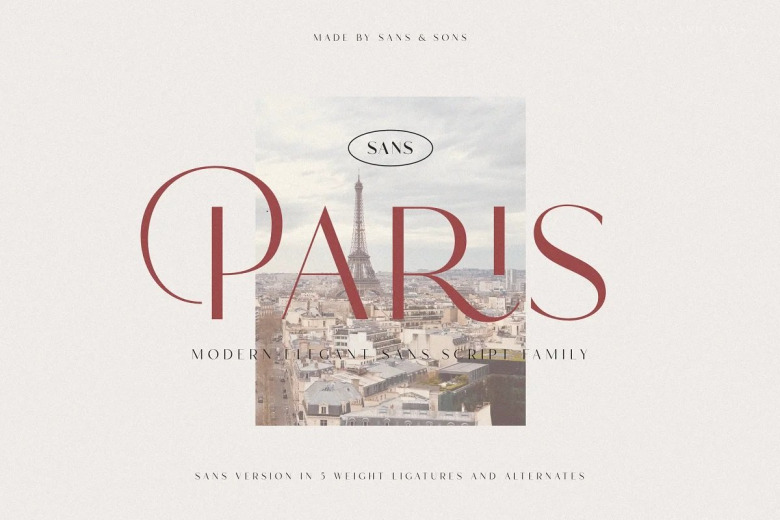
Hello Paris Font
Hello Paris by Noe Araujo Paris is a modern sans-serif typel Paris Sans Serif Font Sentiment & Emotion compliment to the introduction serif, Binary (regular). Hello Paris Sans is a display high contrast typeface so refined, and also legible, it lend itself to high quality branding, logo designs, product packaging, invitation & masterhead designs.